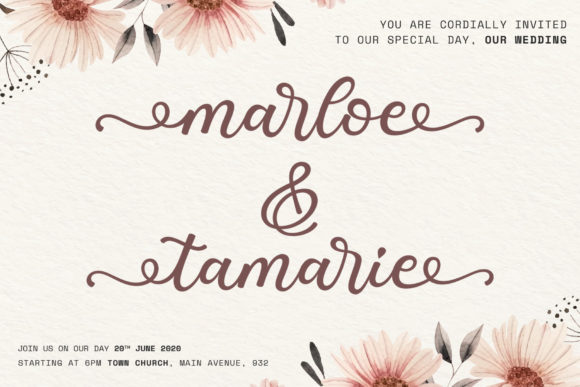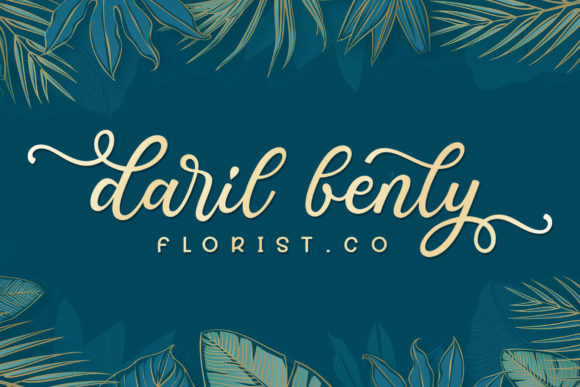
Great Feeling Duo Font
db-ku.com - Script & Handwritten -- Great Feeling duo is a match made in heaven, the authenticity of the script perfectly complements the sans’ style. Combining these two fonts on your next design will give your next design a magical and playful feel.